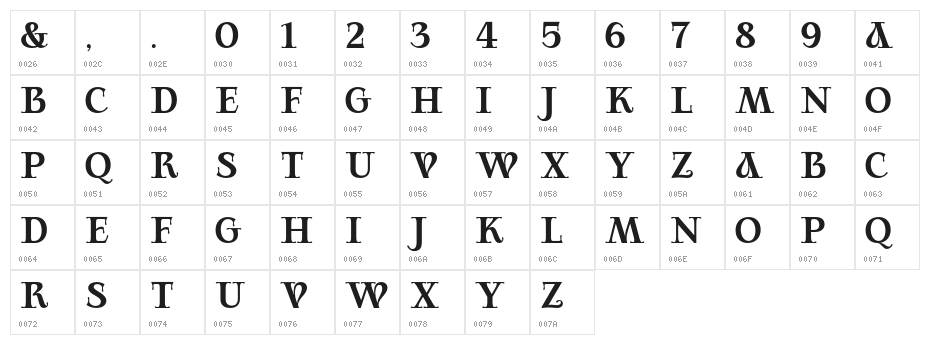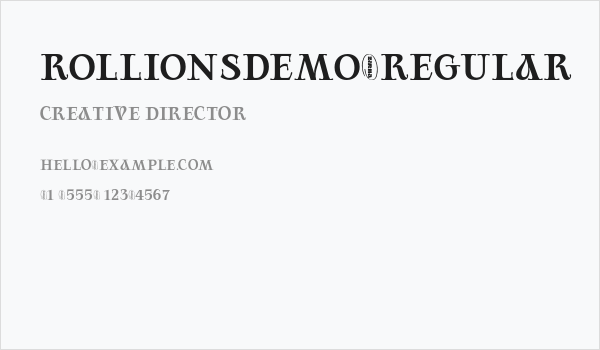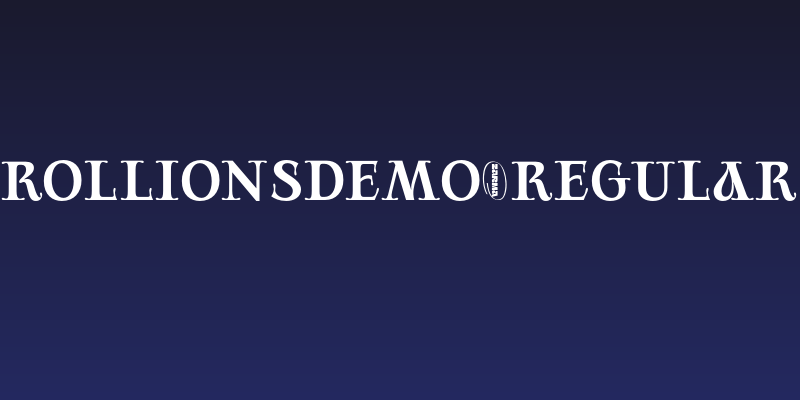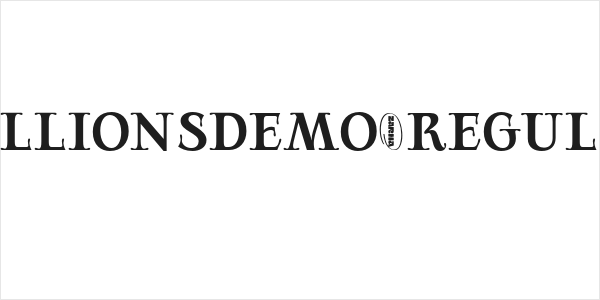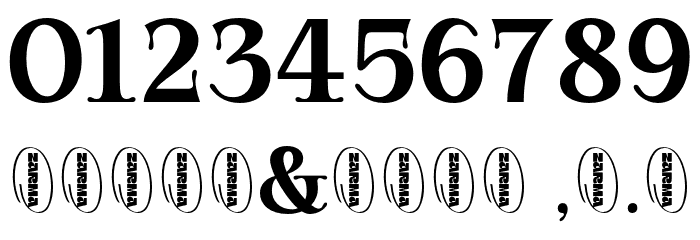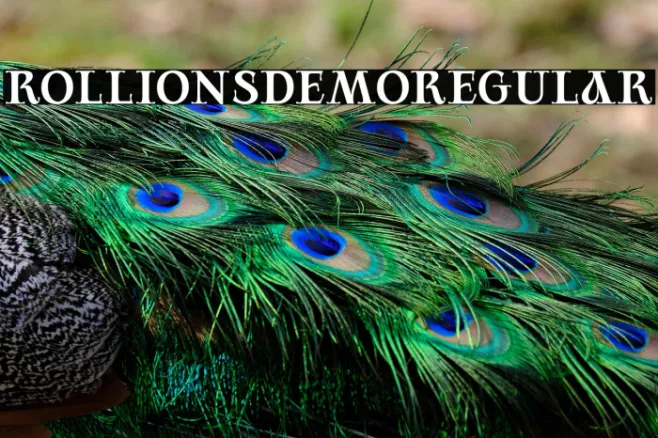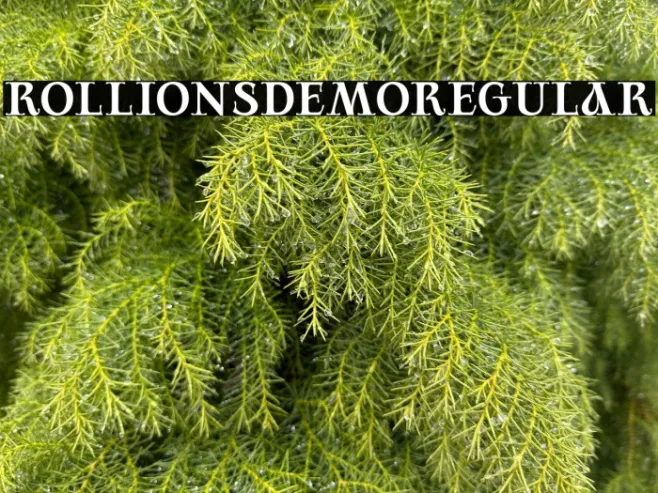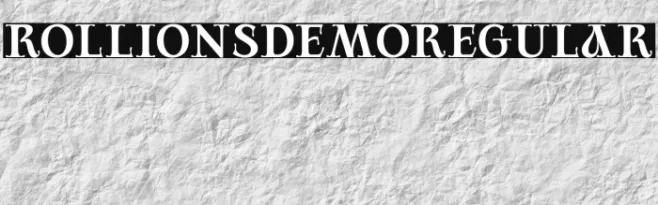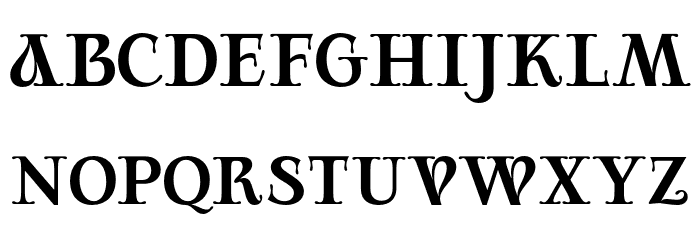
RollionsDEMO-Regular Font
RollionsDEMO-Regular Description
This font features a bold and dramatic serif style, characterized by its thick strokes and pronounced serifs. The letters have a classic and somewhat vintage appearance, with a strong presence and a touch of elegance. The numerals are equally bold, maintaining the same stylistic elements as the letters. The special characters are designed to complement the overall aesthetic, ensuring consistency throughout. This font is designed to stand out, making it suitable for projects that require a strong visual impact.
| Proposed Projects | Ideal for branding, headlines, posters, and any design requiring a bold, classic touch. |